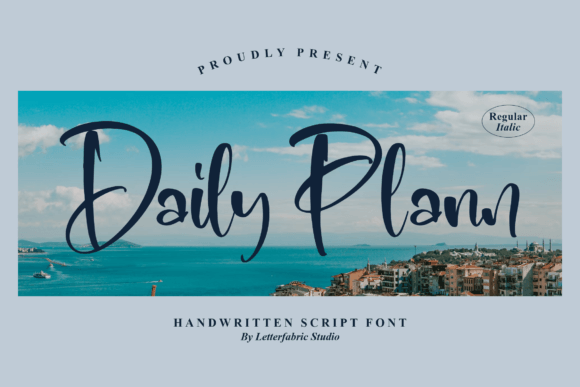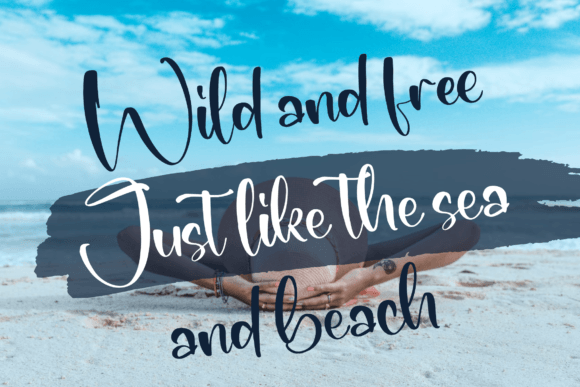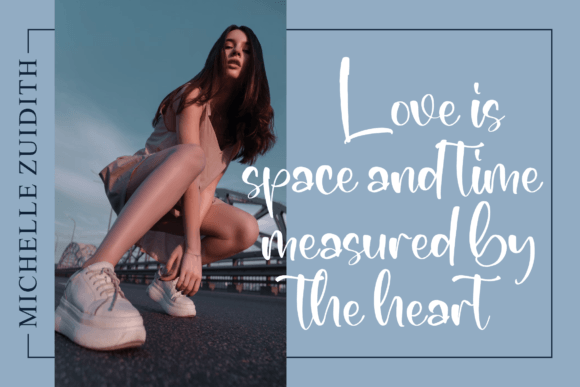
About Daily Plann Font
Daily Plann is an amazing handwritten font that proves to be a versatile choice for a wide array of design projects. Suitable for logos, branding projects, homeware designs, product packaging, mugs, quotes, posters, shopping bags, T-shirts, book covers, name cards, invitation cards, greeting cards, labels, photography, watermarks, special events, and various other lovely projects, this font adds a beautiful touch to your creative endeavors.
In logos and branding projects, Daily Plann brings a distinct and personal feel. Its handwritten style adds authenticity to your brand identity, creating a connection with your audience. The font’s versatility ensures that it can adapt to various industries and themes.
For product packaging, Daily Plann adds a touch of charm and uniqueness. Its handwritten character contributes to creating a memorable and engaging visual identity for your products, making them stand out on the shelves.
In quotes and posters, Daily Plann provides a beautiful and expressive typeface. The handwritten style adds warmth and character to your messages, making them more visually appealing and relatable.
For T-shirts and shopping bags, Daily Plann offers a trendy and personalized look. The font’s casual and handwritten design contributes to a laid-back and stylish aesthetic, perfect for fashion-related projects.
In book covers and name cards, Daily Plann adds a touch of creativity and individuality. The handwritten script style enhances the overall visual appeal, making your designs more captivating and memorable.
The versatility of Daily Plann extends to various design contexts, making it suitable for labels, greeting cards, photography watermarks, and special events. Its beautiful touch enhances the overall aesthetic of your projects, creating a cohesive and charming visual experience.
In summary, Daily Plann is more than just a font; it’s a design asset that brings a beautiful touch to a variety of creative projects. Whether you’re working on branding, packaging, or special events, Daily Plann is ready to infuse your designs with its amazing handwritten style, making them more engaging and delightful.